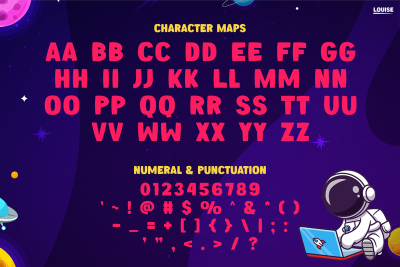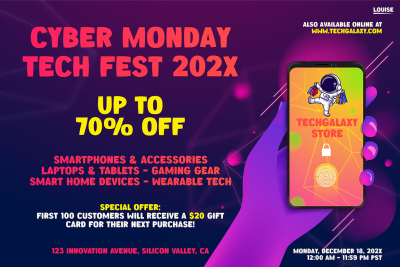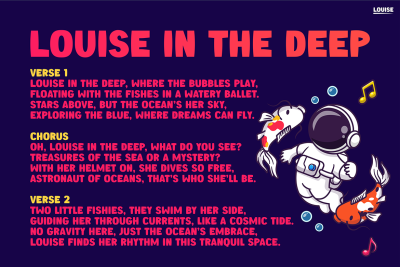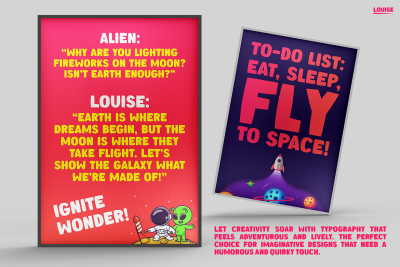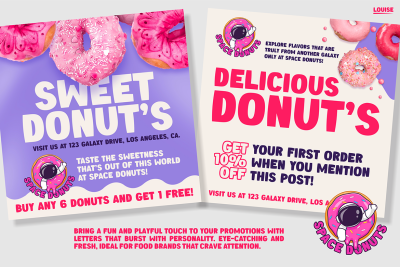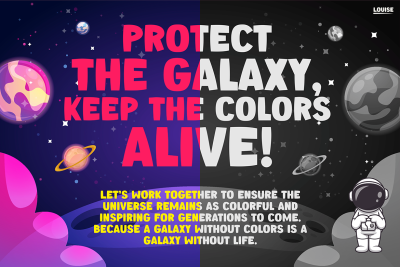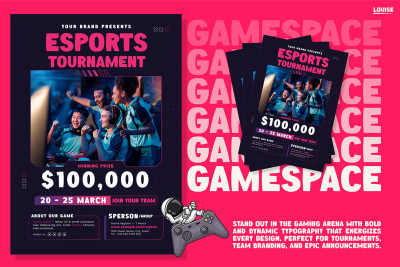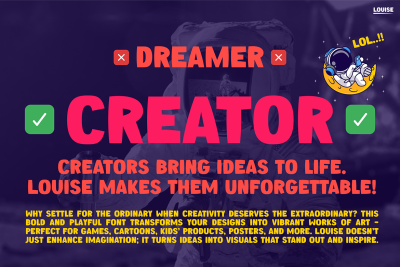
Kids Font Louise is a playful and cheerful typeface designed specifically to capture the joy and innocence of childhood. Its rounded letterforms, soft curves, and friendly appearance make it approachable and visually appealing. This font draws inspiration from handwritten letters and doodles, creating a sense of warmth and creativity. Whether youโre working on projects for kids or simply want to add a lighthearted, fun element to your designs, Kids Font Louise is a versatile choice.
With its easy-to-read and whimsical structure, this font isย beautifully in both digital and printed formats. The carefully crafted shapes ensure legibility while maintaining a lively and carefree personality. The fontโs hand-drawn style evokes charm and simplicity, making it perfect for designs that need to feel youthful, energetic, and approachable.
This font is more than just a font; itโs a tool to convey playfulness and positivity. Its colorful and vibrant nature resonates well with audiences who appreciate designs tailored to children and families. From books to games, this typeface brings imagination to life with its delightful visual appeal.
Kids Font Louise Perfect For
Kids Font Louise is ideal for graphic designers, educators, parents, and content creators working on child-centric projects. Itโs the perfect choice for crafting childrenโs books, learning materials, and classroom posters. Teachers and educators can use it to design engaging worksheets and activity booklets that keep young learners excited and focused.
For small businesses in industries like childrenโs toys, clothing, or games, Kids Font Louise adds a fun and creative element to branding. The font works beautifully for logos, packaging, and store signage that target families and young audiences. Its cheerful vibe makes it particularly effective for products like educational toys, puzzles, or baby products.
Event planners can also use Kids Font Louise to design invitations, banners, and party decorations for birthdays, baby showers, or school events. Its hand-drawn charm creates a friendly and festive atmosphere that appeals to both kids and parents.
Content creators and social media managers who focus on parenting or childrenโs activities can rely on Kids Font Louise to make their graphics stand out. Itโs great for YouTube thumbnails, blog titles, or Instagram posts that need a playful yet polished look. The fontโs versatility ensures it blends seamlessly with both colorful designs and minimal layouts.
Whether youโre designing a child-friendly website, playful merchandise like t-shirts and lunchboxes, or creating digital games and apps for kids, Kids Font Louise delivers personality and fun. It adds just the right amount of joy to projects that require a youthful and lighthearted touch.
This font is for anyone who wants to capture the magic and wonder of childhood. Its lively and engaging design ensures your message stands out while evoking smiles and creativity in every project.